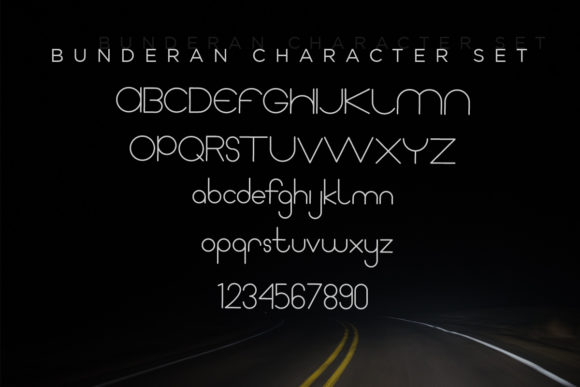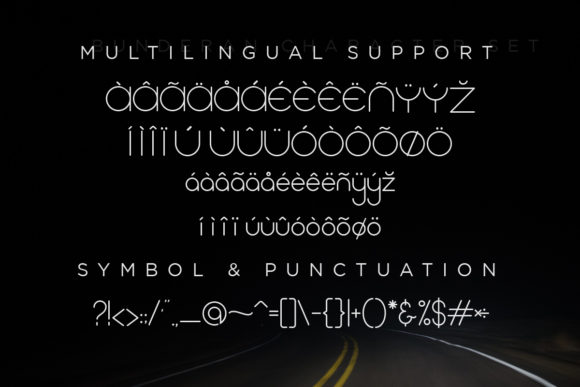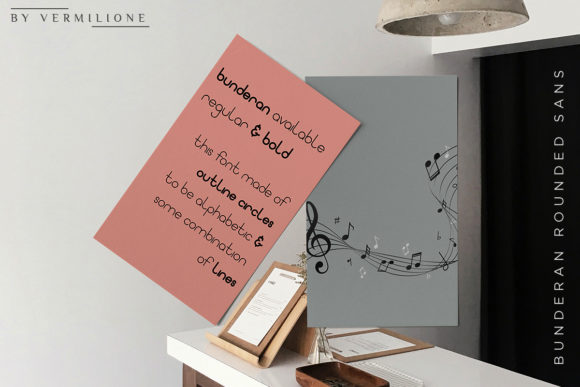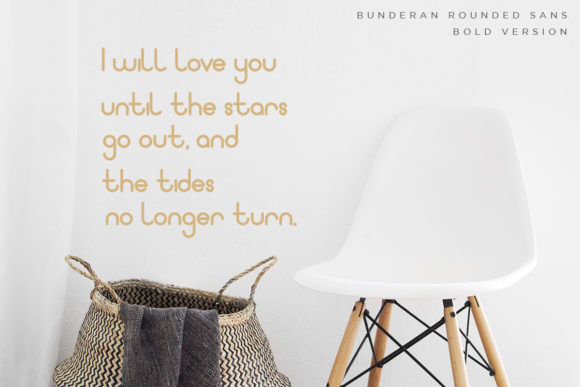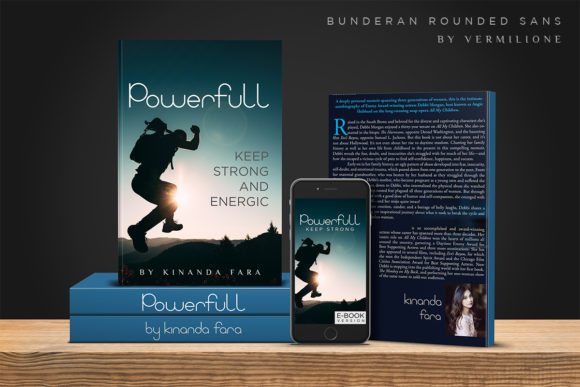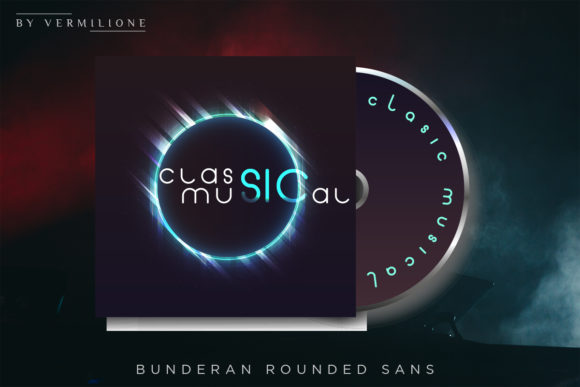
Bunderan Font: The Ultimate Sans Serif Typeface for Modern Designs
In the world of typography, fonts play a crucial role in conveying the tone and personality of a brand or design. For designers and crafters, finding the perfect font can be a daunting task, especially when it comes to creating visually appealing and effective designs. This is where the Bunderan Font comes in – a simple sans serif typeface with rounded edges that offers a smooth and clean look, perfect for a variety of design applications.
What is Bunderan Font?
The Bunderan Font is a modern sans serif typeface designed to provide a clean and minimalist look. Its rounded edges give it a soft and approachable feel, making it perfect for designs that require a friendly and approachable tone. The font’s simplicity and elegance make it an excellent choice for logo designs, titles, subtitles, branding, and small amounts of text.
Key Features of Bunderan Font
- Rounded Edges: The Bunderan Font features rounded edges, which give it a smooth and clean look.
- Sans Serif: The font is a sans serif typeface, making it perfect for modern and minimalist designs.
- Simple and Elegant: The Bunderan Font is designed to be simple and elegant, making it perfect for a variety of design applications.
- Versatile: The font is versatile and can be used for logo designs, titles, subtitles, branding, and small amounts of text.
Benefits of Using Bunderan Font
The Bunderan Font offers several benefits for designers and crafters, including:
- Improved Readability: The font’s clean and simple design makes it easy to read, even at small sizes.
- Enhanced Visual Appeal: The rounded edges and sans serif design give the font a visually appealing look that can enhance the overall aesthetic of a design.
- Flexibility: The Bunderan Font can be used for a variety of design applications, from logo designs to small amounts of text.
- Unique Identity: The font’s unique design can help create a distinctive identity for a brand or design.
Design Applications for Bunderan Font
The Bunderan Font is perfect for a variety of design applications, including:
- Logo Designs: The font’s simple and elegant design makes it perfect for logo designs that require a clean and modern look.
- Titles and Subtitles: The Bunderan Font can be used for titles and subtitles to add a touch of elegance and sophistication to a design.
- Branding: The font’s versatility makes it perfect for branding applications, such as business cards, letterheads, and packaging.
- Small Amounts of Text: The Bunderan Font is perfect for small amounts of text, such as headings, labels, and captions.
Tips for Using Bunderan Font
Here are some tips for using the Bunderan Font effectively:
- Use it Sparingly: The Bunderan Font is best used sparingly to add emphasis to a design.
- Experiment with Sizes: Experiment with different font sizes to find the perfect balance for your design.
- Pair it with Other Fonts: The Bunderan Font can be paired with other fonts to create a unique and visually appealing design.
The Bunderan Font is a versatile and elegant sans serif typeface that offers a smooth and clean look. Its rounded edges and simple design make it perfect for a variety of design applications, from logo designs to small amounts of text. With its improved readability, enhanced visual appeal, and flexibility, the Bunderan Font is an excellent choice for designers and crafters looking to create visually appealing and effective designs.